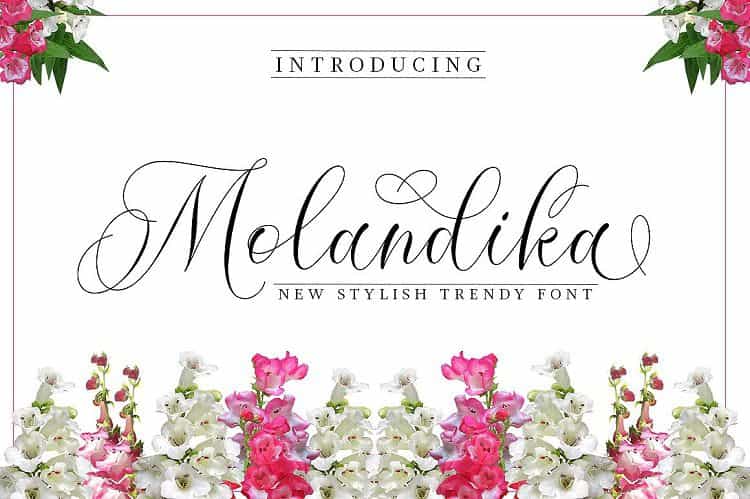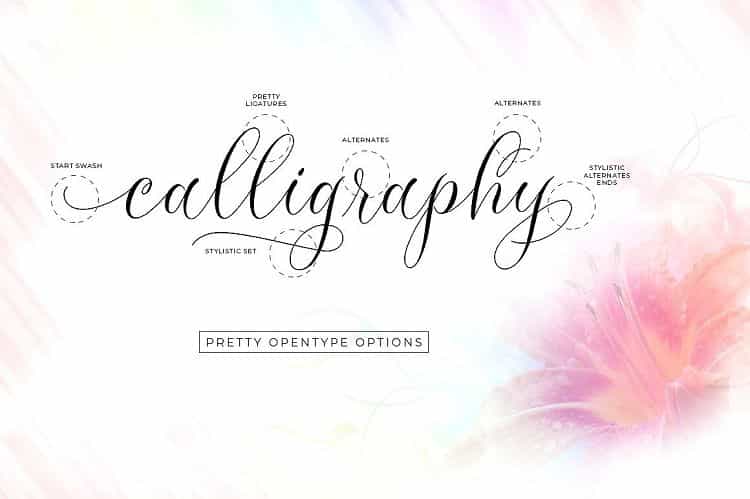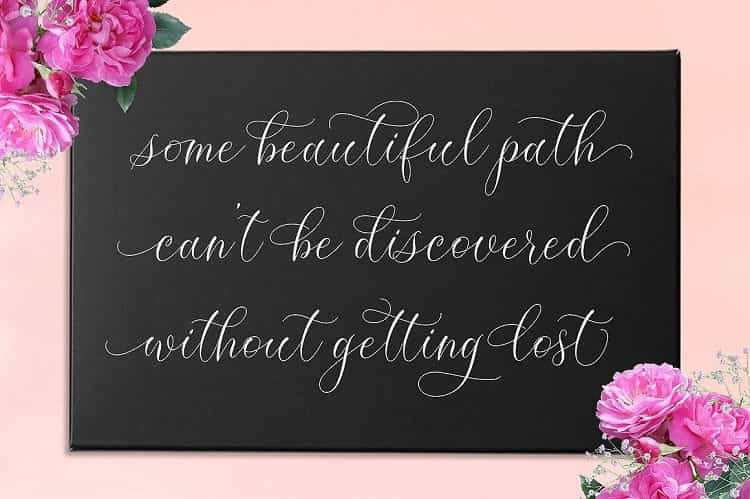
Introducing Molandika Font! Molandika Font is designed and shared by GreatStudio Design. Molandika Script is an elegant Calligraphy font, designed to convey elegance and style. Molandika is thin, feminine and friendly, This font perfect for design casual and pretty with swashes. Can be used for various purposes.such as the logo, product packaging, wedding invitations, branding, headlines, signage, labels, signature, book covers, posters, quotes and more.